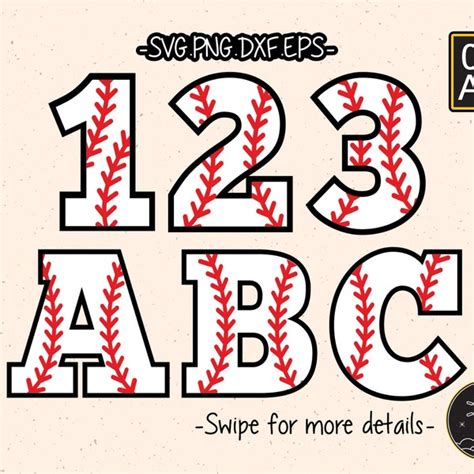
Score Big: Free Baseball Number Fonts!
Hey baseball fans, are you looking to jazz up your team’s jerseys, create some awesome graphics, or maybe just show off your love for the game? Well, you’ve hit the jackpot, because we’re diving deep into the world of baseball number fonts , specifically the ones you can grab for free ! Forget spending a fortune on expensive fonts; we’re talking about getting that authentic baseball look without breaking the bank. Let’s be honest, finding the perfect font can be a real game-changer. It’s the difference between a good design and a home run design, am I right? In this article, we’ll explore some of the best free baseball number fonts available for download, and we’ll talk about where to find them, how to use them, and even some cool design ideas to get those creative juices flowing. So, whether you’re a coach, a graphic designer, or just a die-hard fan, get ready to elevate your baseball projects with these fantastic, free fonts ! We will explore the characteristics of great baseball fonts, and how to get those amazing fonts for free. Grab your bat and let’s get started!
Why Baseball Number Fonts Matter
Alright, guys, before we jump into the fonts themselves, let’s talk about why baseball number fonts are so darn important. It’s not just about picking a font; it’s about capturing the essence of the sport. These fonts are more than just letters and numbers; they’re a visual representation of the game we all love. They evoke a sense of tradition, nostalgia, and team spirit. Think about it: when you see a classic baseball number font, what comes to mind? Probably images of legendary players, iconic moments, and the thrill of the game, right? That’s the power of a well-chosen font. Choosing the right font can instantly communicate your message to your audience. Baseball fonts will create that sense of team and bring out the passion and heart of the sport.
The right font can make your design pop or look amateurish. The font’s design will determine the look of your design and how your team represents themselves. This is why it is important to find the right baseball number font and use them well. The font you select reflects the team’s identity. Do you want something bold and aggressive to show you are in it to win it? Or perhaps something more classic and traditional? The font choice directly influences the viewer’s perception of your team’s character, ethos and persona. A well-designed font will create cohesion. The right font will elevate your team’s brand. Consistency is also key. Keeping a unified look across jerseys, social media graphics and promotional material will create brand recognition.
Then there’s the practical side. Number fonts need to be easily readable, even from a distance. Imagine a jersey with numbers that are hard to decipher; not ideal for fans or the scoreboard operator! The best baseball fonts are designed with readability in mind, ensuring that those crucial numbers are always clear. Strong, bold fonts are important to make sure the viewer has no problem seeing the numbers. This is where it gets interesting, with each font having unique characteristics. Some fonts are more suitable for print, while others shine on digital screens. Knowing what you will use them for, will determine what font you need. If you’re designing for a specific platform or medium, consider the font’s appearance in different scenarios, making sure to adapt it to the environment. Choosing the right baseball number font involves a combination of aesthetic appreciation and practical consideration. It’s about blending the art of design with the functionality of the game, to create designs that speak to the heart of baseball.
Finding Free Baseball Number Fonts: Where to Look
When downloading fonts from these sites, always be careful. Download from reputable sources to avoid any malware or security risks. Double-check the file format. The most common format is .ttf (TrueType Font) or .otf (OpenType Font). These formats work with most design programs. Always check the licensing of the font. Some fonts are free to use. Others may only be used for personal use, unless you pay for a commercial license. Always read the fine print before using your desired font.
Top Free Baseball Number Font Picks
Now for the moment you’ve all been waiting for: my top picks for the best free baseball number fonts ! These fonts are all readily available, and they capture that authentic baseball vibe perfectly:
1. Varsity Team Font: This is a classic, bold font that screams